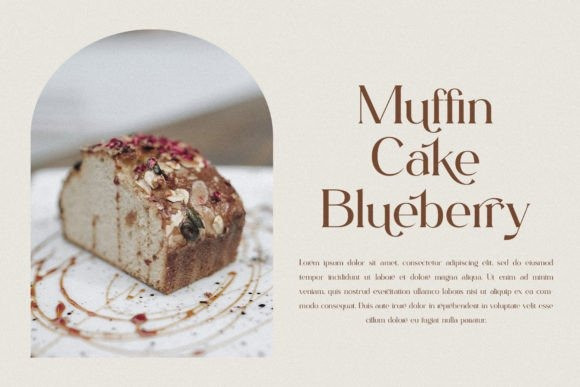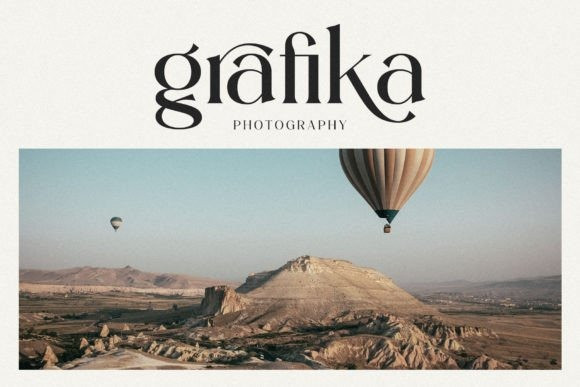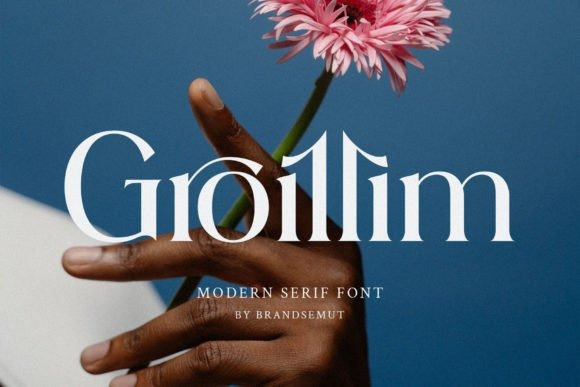
Groillim Font
Groillim Serif Font is an elegant and modern serif typeface, best used as a display for headings, logos, branding, magazines, product packaging, and invitations. Groillim comes with clean lines and smooth curves giving any project an extra touch of class. This font is PUA encoded which means you can access all the glyphs and ligatures with ease!